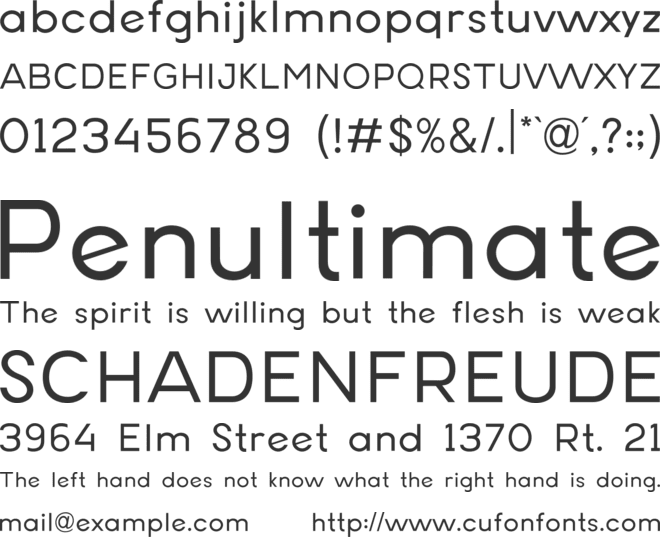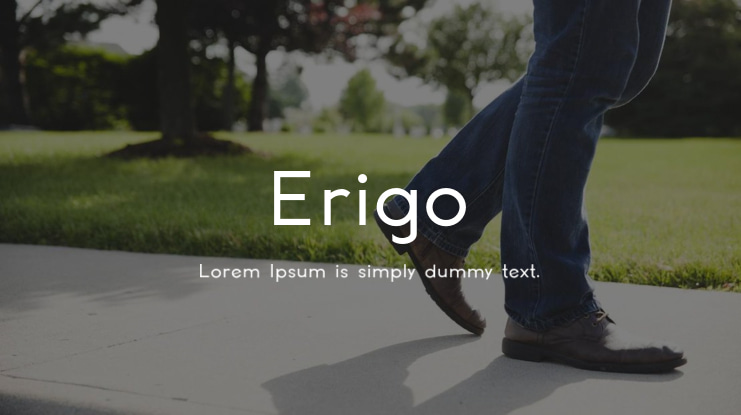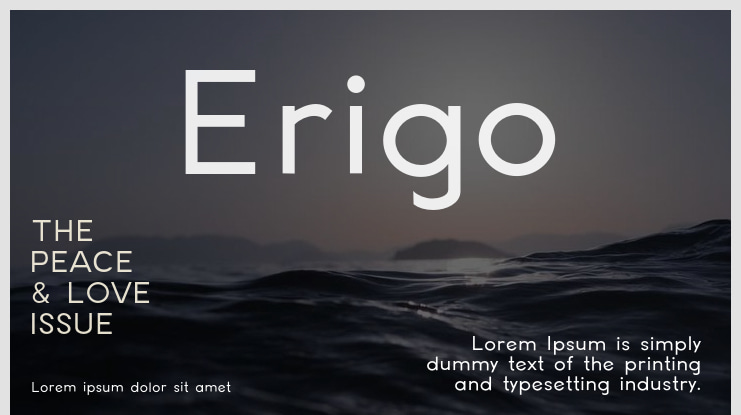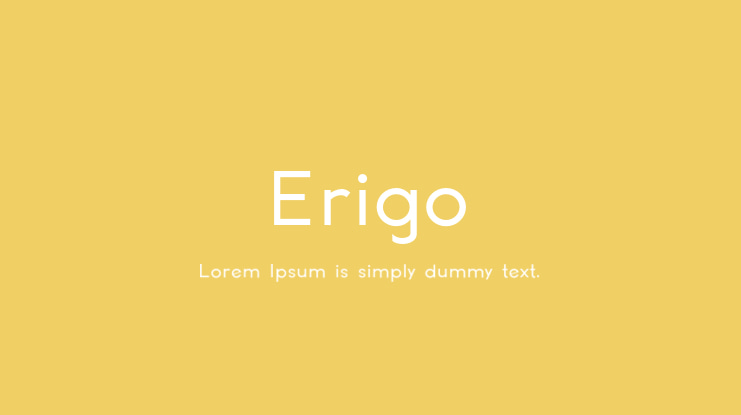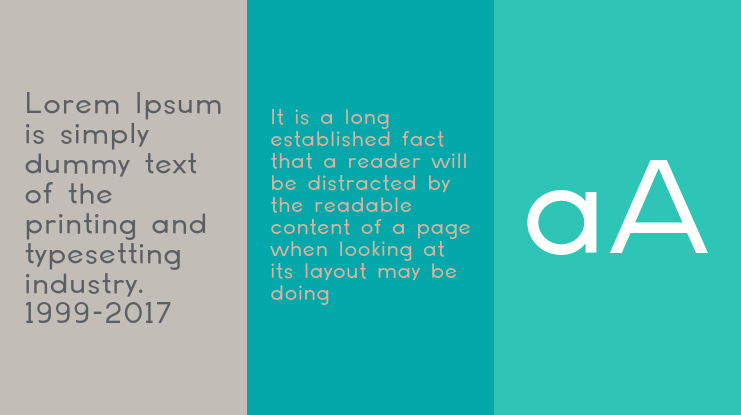
Erigo Font Family
ERIGO fonts exemplify a blend of sleek modern design and timeless sophistication. The sans-serif style, known for its crisp lines and simplistic allure, serves as a versatile platform for artistic expression in various design contexts. Whether communicating professionalism in corporate settings or enhancing digital interfaces with clarity and legibility, erigo fonts highlight their flexibility and enduring appeal in capturing attention and effectively conveying messages in today's visually oriented world.
Key Features: